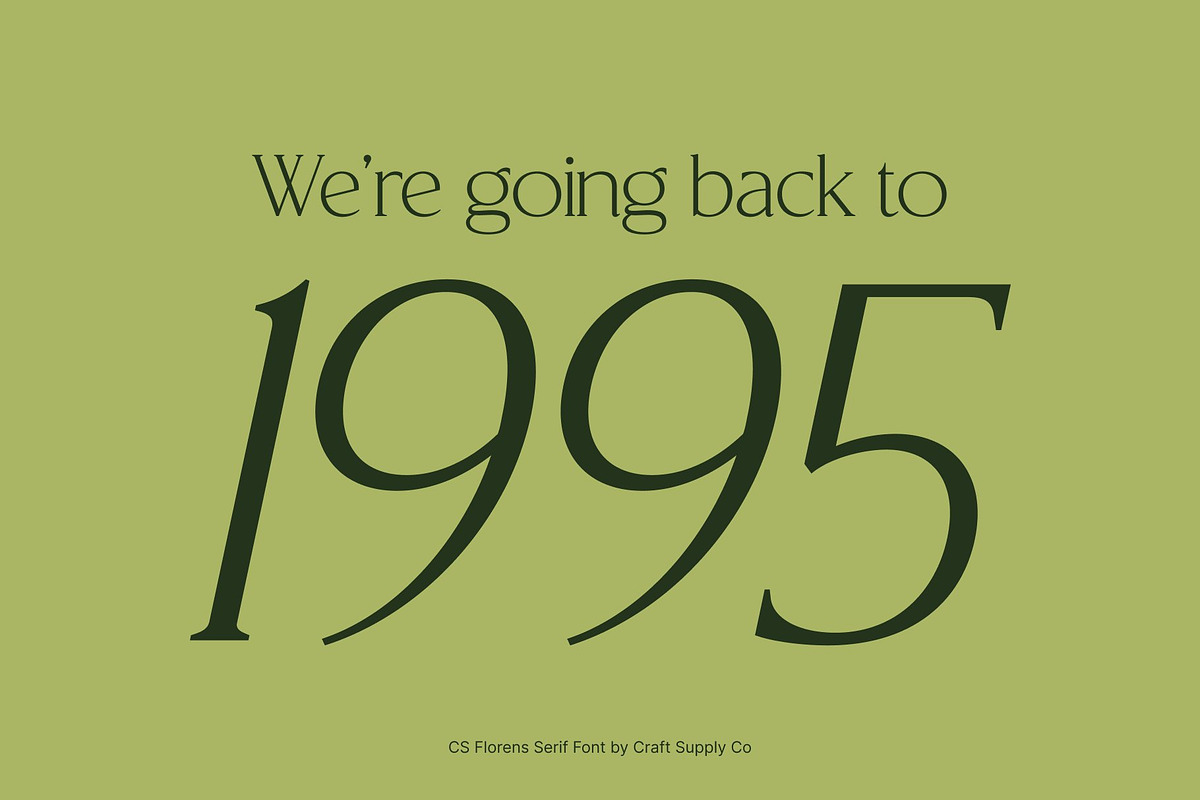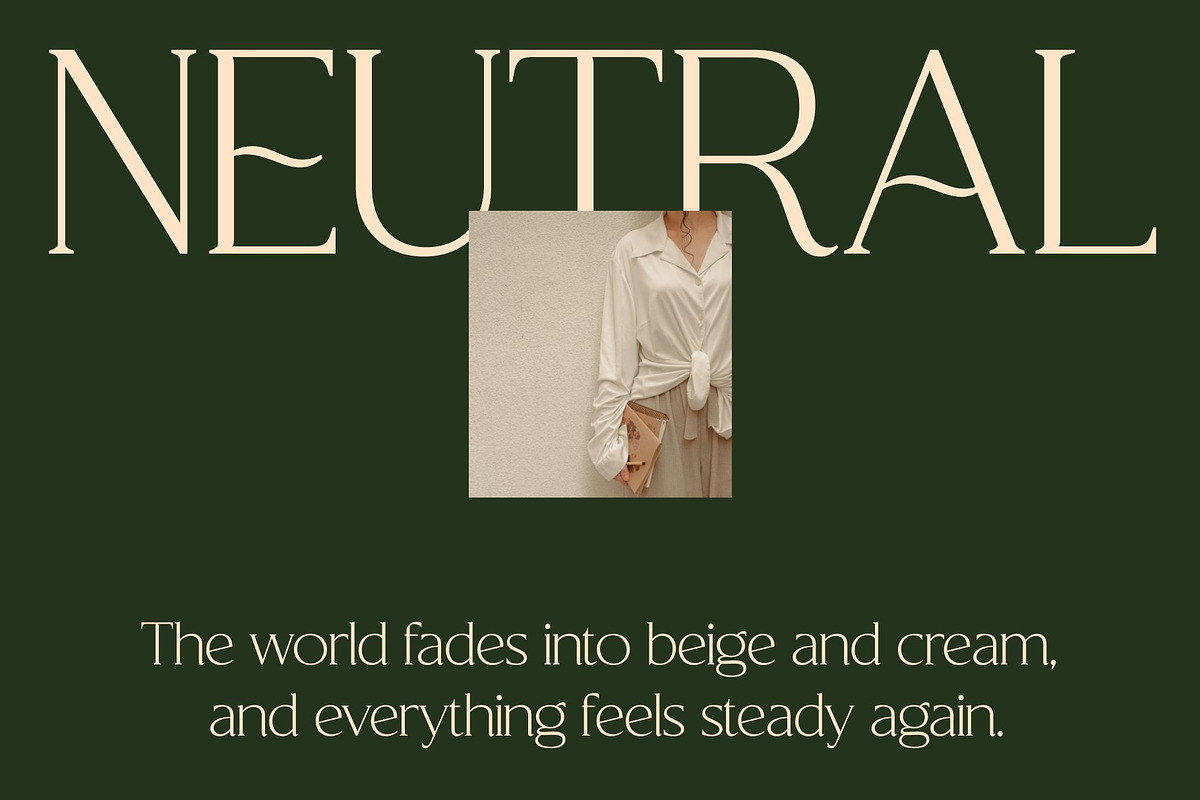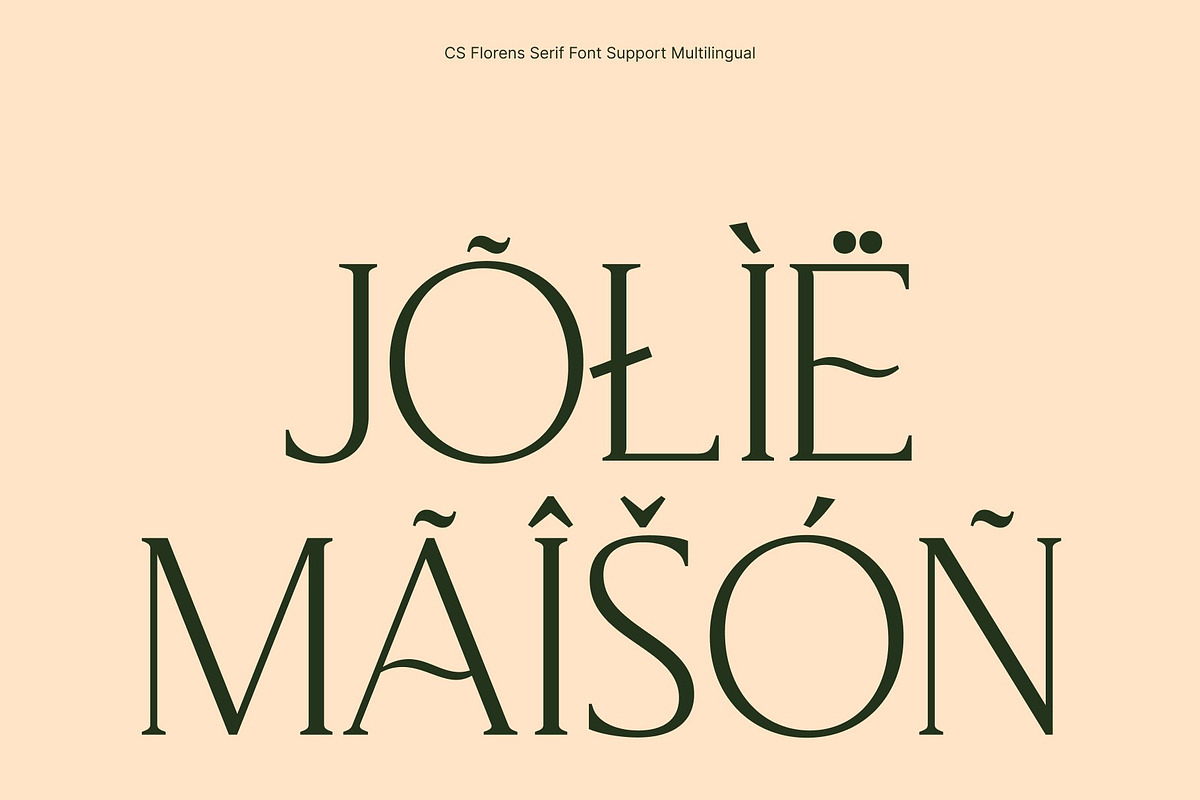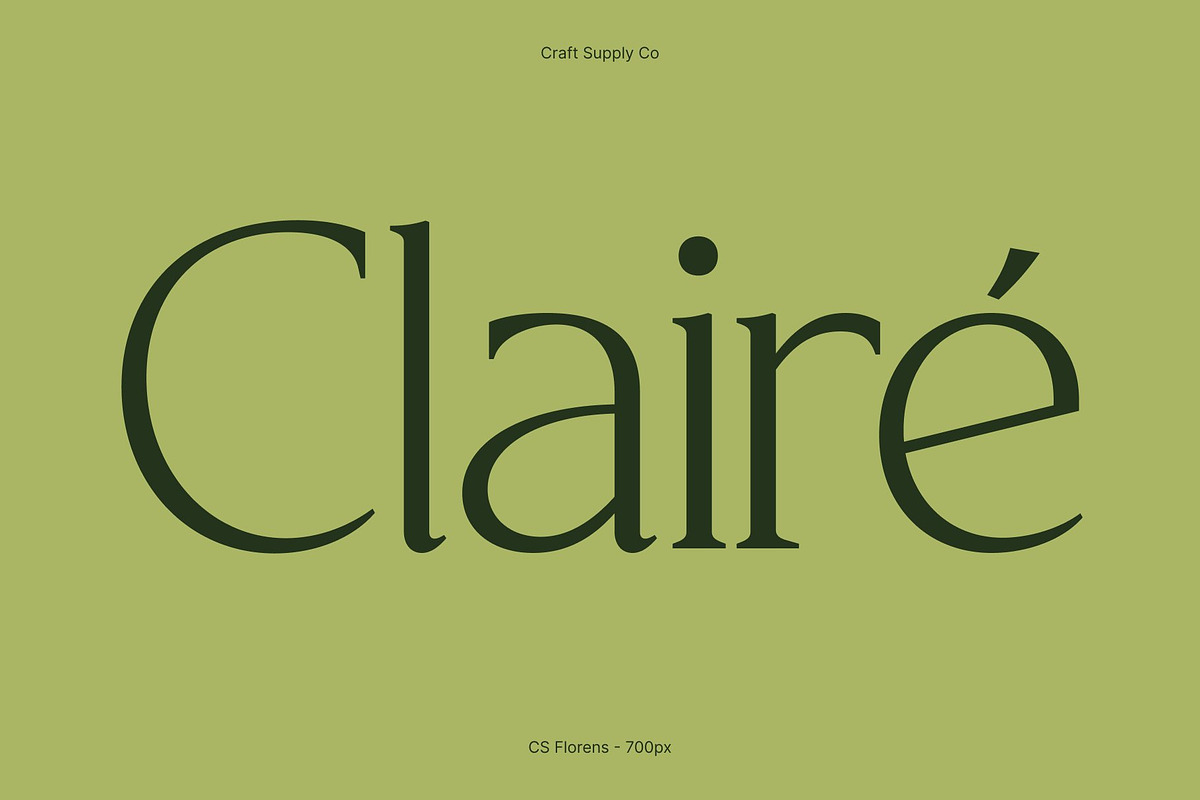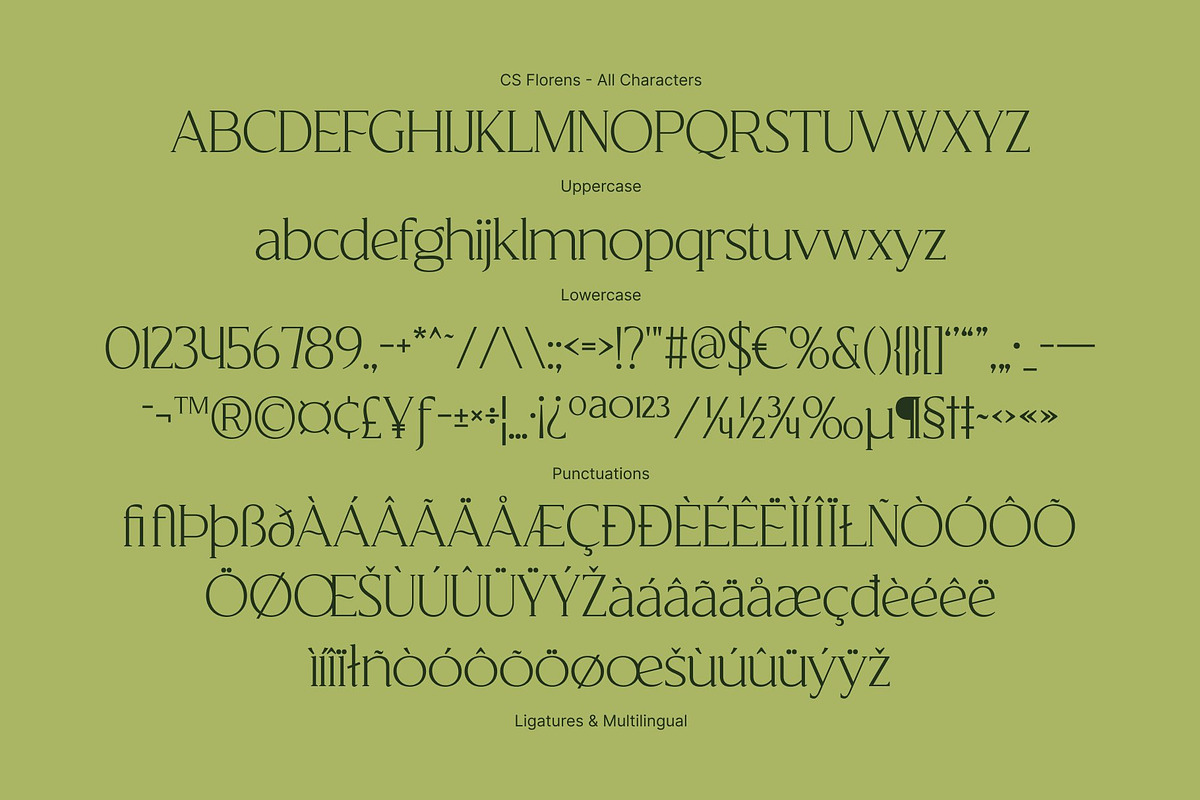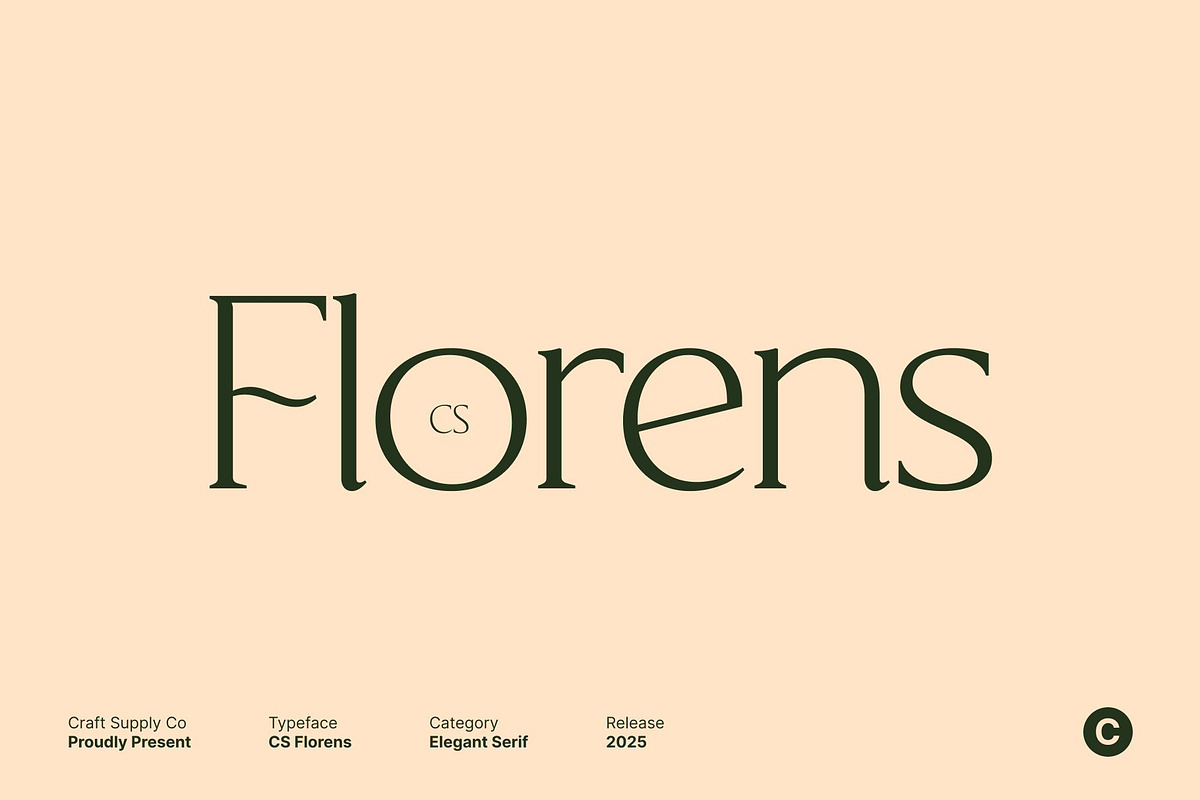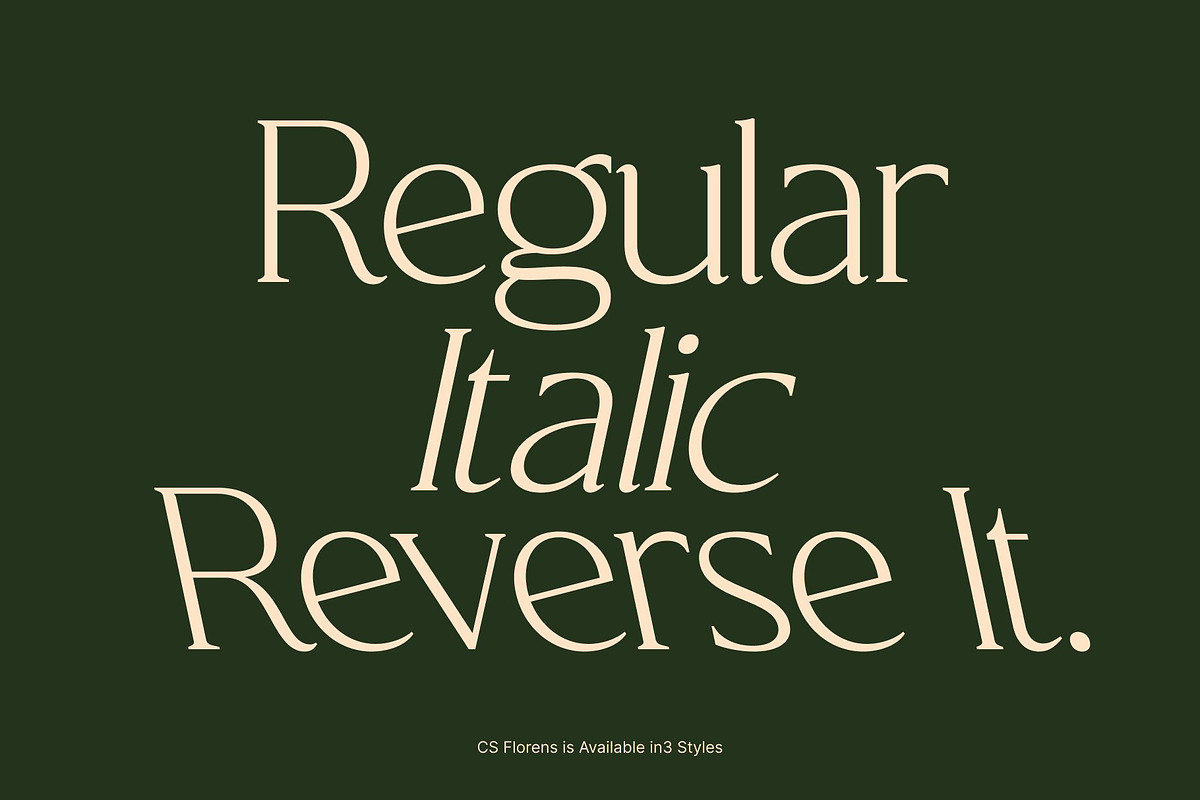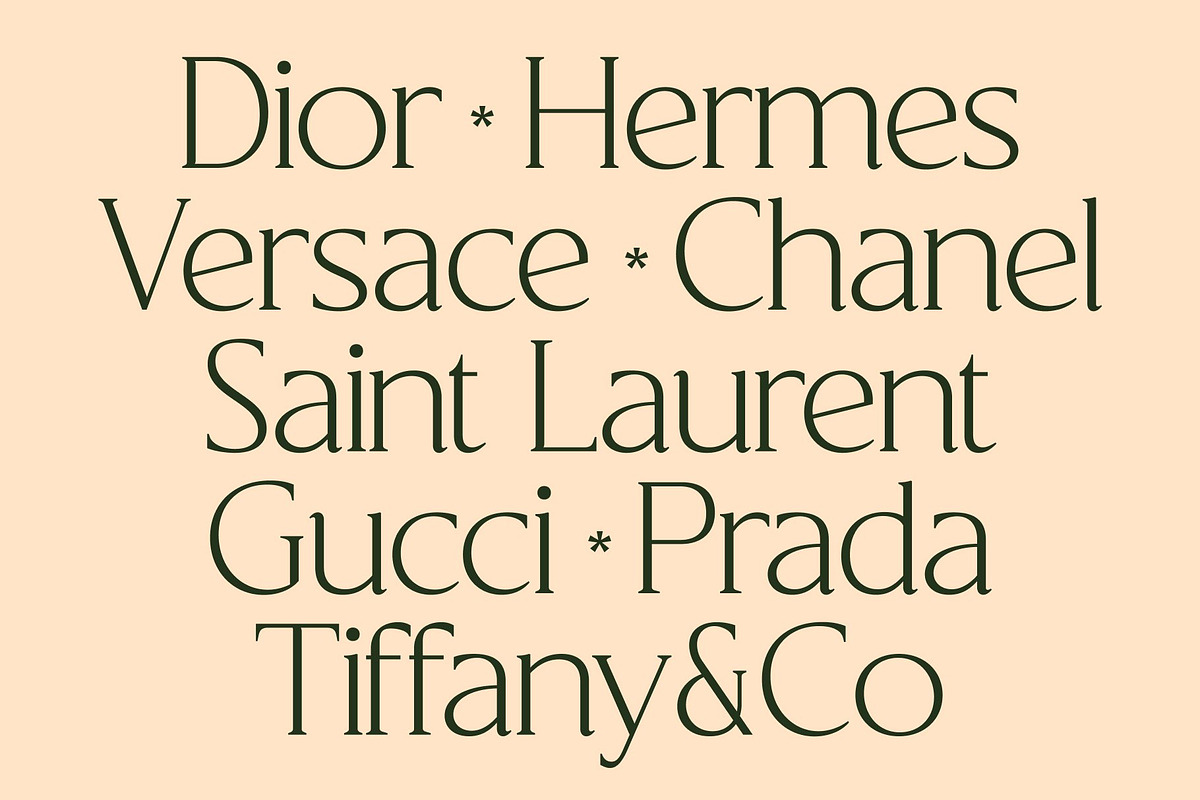
CS Florens – Elegant Serif Font
CS Florens – Elegant Serif with Refined Geometry: High End Serif Font with Sophisticated Design
Sophisticated and Elegant Letterforms This is an elegant serif font designed to convey refinement, luxury, and clarity. Its smooth curves and precise shapes create a graceful rhythm, giving every word a polished and distinguished appearance. Perfect for projects that demand high end sophistication and timeless style.
Geometric Balance for Visual Harmony The font’s geometric construction enhances compositional balance, creating a sense of structure and elegance. Its well proportioned letterforms allow for beautiful typographic layouts, making it suitable for both large displays and detailed text applications.
Versatile for Premium Applications This font adapts seamlessly to editorial design, branding, packaging, and luxury products. Its combination of classic serif aesthetics with modern precision ensures a look that feels both timeless and contemporary, elevating any visual project.
Perfect for Dignified and Luxurious Design Whether used for magazines, high end branding, or sophisticated advertising, this font offers a refined and polished presence. Its elegant curves and geometric precision make it a go to typeface for designers seeking clarity, beauty, and enduring style.